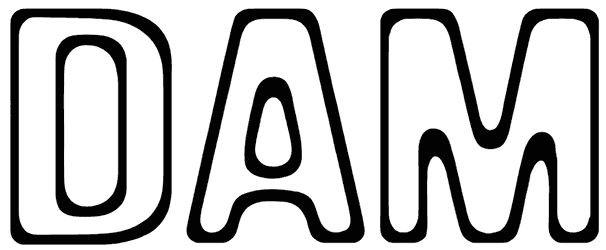
DAM Font
Designed bySaji Johnny Kundukulam
If you want to take further steps in designing high-end graphic content, you should never overlook a practical outline font like DAM that comes with a sense of classic, approachability, respect, and dynamism. This all-caps comic font can be utilized in a wide range of artwork, including movie posters, book covers, editorial projects, illustrations, or product packaging.